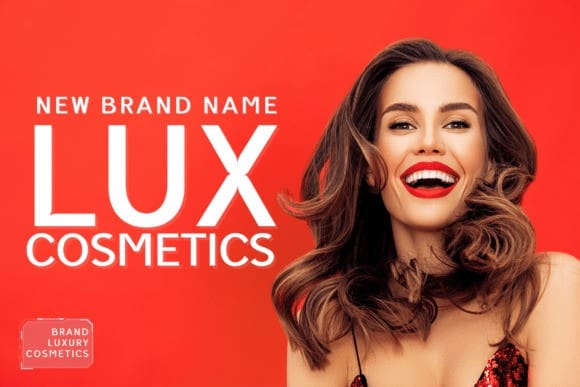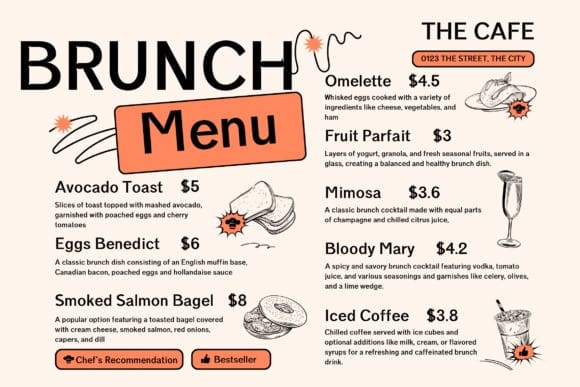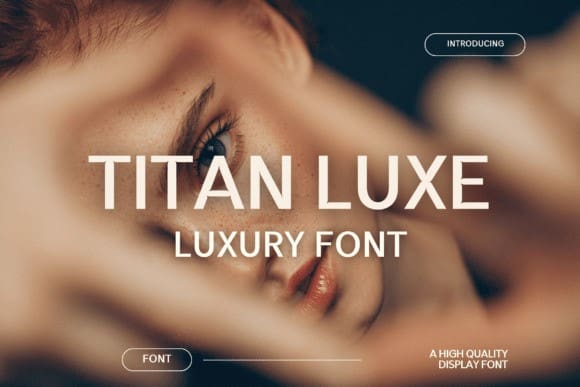
Titan Luxe Font
Titan Luxe Font – the epitome of modern elegance in the realm of sans-serif typefaces. Specifically conceived for posh branding purposes, chic packaging aesthetics, and the creation of fashion-forward editorial designs. This typeface, with its immaculate lines and indulgent ambiance, infuses an air of sophistication effortlessly, making it a perfect choice for crafting unforgettable logos, standout invitations, and captivating brochures. Dive into the world of grandeur with Titan Luxe, where every script turns into a style statement.